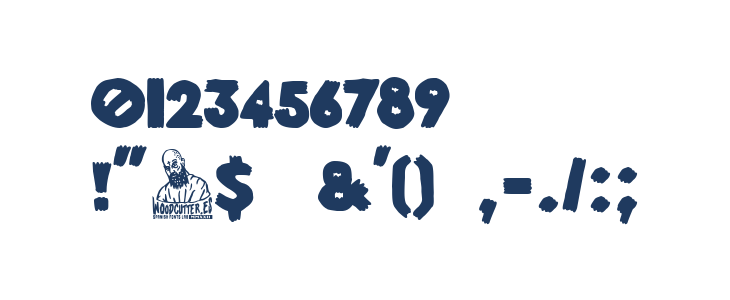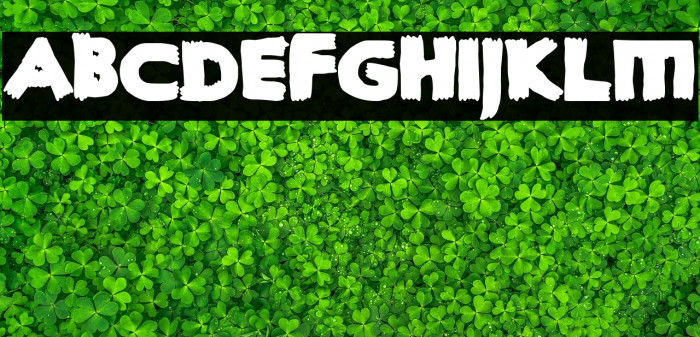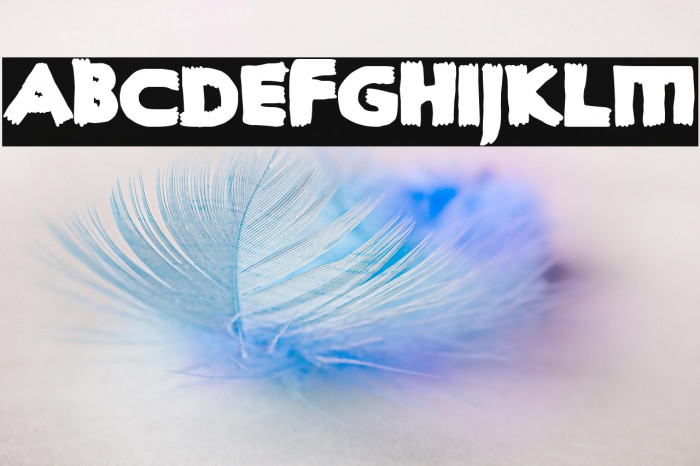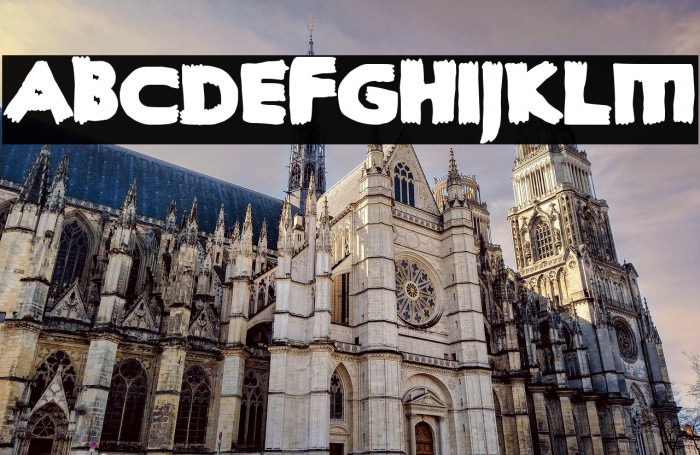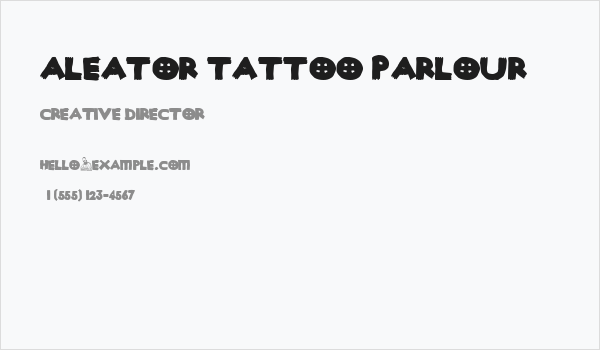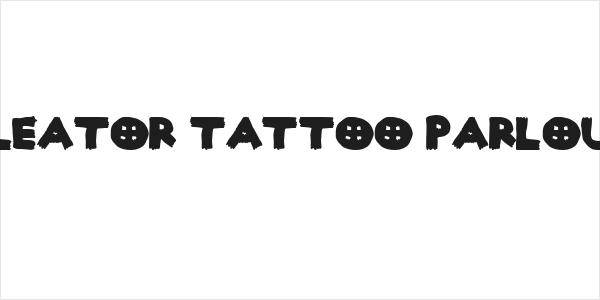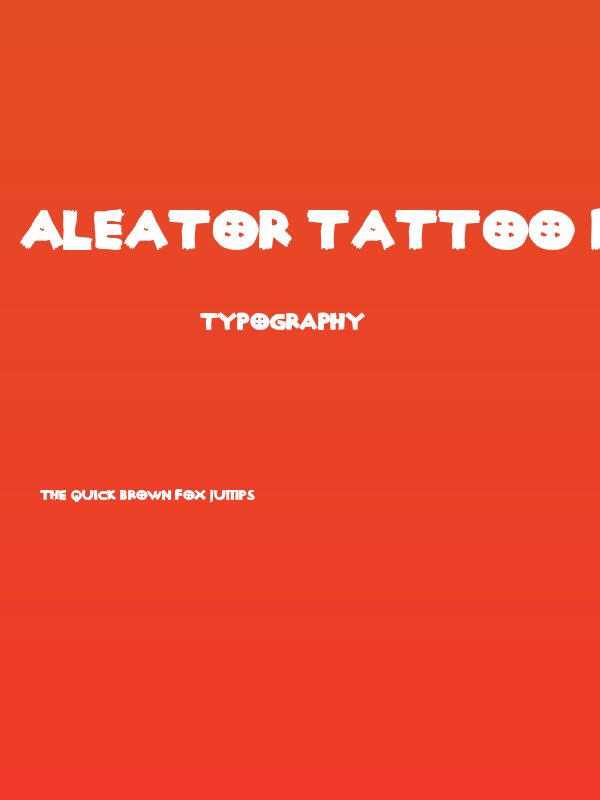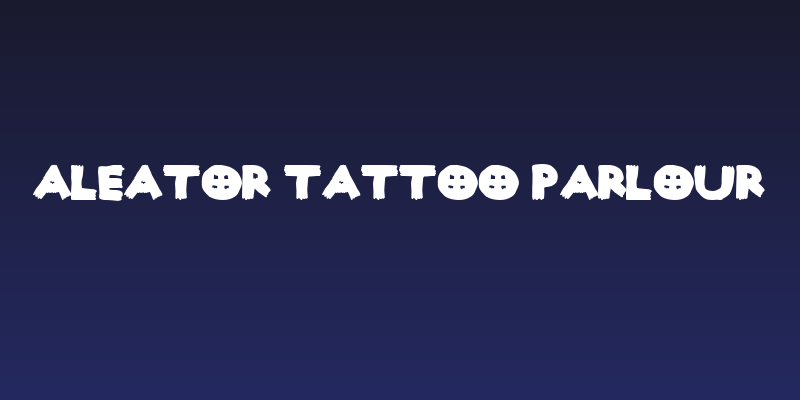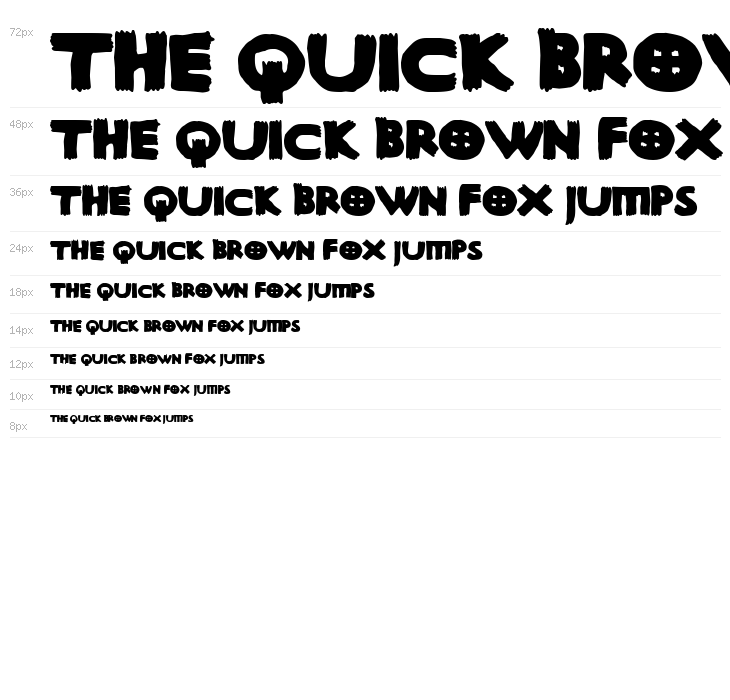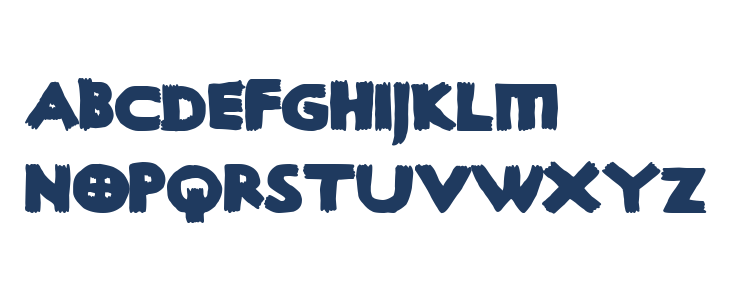
Aleator Tattoo Parlour Font
Aleator Tattoo Parlour Description
This font features a bold and edgy design, characterized by its thick, uneven strokes and a rough, hand-drawn appearance. The letters have a distinctive, rebellious style, with some characters incorporating unique elements like slashes and dots. The overall look is reminiscent of graffiti or tattoo art, making it stand out with its strong visual impact. The numerals and special characters maintain the same bold and artistic flair, ensuring consistency across all glyphs. This font is perfect for projects that require a bold statement and a touch of urban or alternative culture.
| Proposed Projects | Ideal for tattoo designs, album covers, streetwear branding, and posters. |